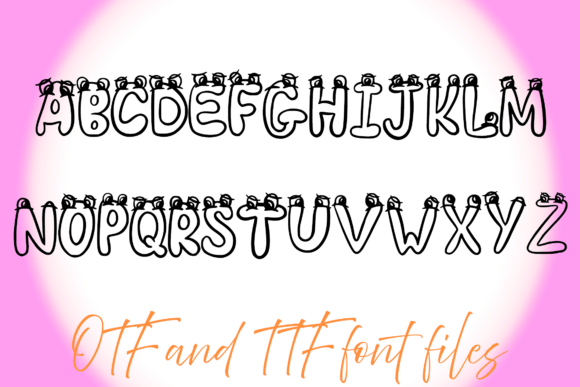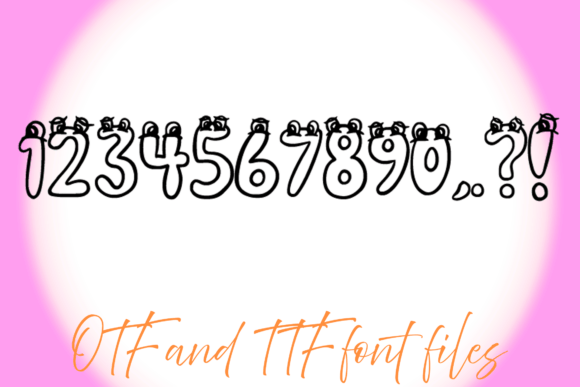
Introduction to Monster Eyes Font
Have you ever stared at a blank canvas, trying to find the perfect font to bring your creative project to life? It’s that moment of frustration, mixed with excitement, when you stumble upon a game-changing design resource. For many designers, that moment came when they discovered the Monster Eyes Font.
This incredibly unique display font has the power to elevate your designs to new heights. With its quirky, eye-catching style, Monster Eyes Font is the perfect addition to any creative project. Whether you’re working on a graphic design, a logo, or even a social media post, this font has the potential to make your design stand out from the crowd.
Key Features of Monster Eyes Font
- Unique and Creative Design: The Monster Eyes Font is designed to add a playful touch to any creative project, making it a valuable design resource.
- Perfect for Illustrations and Graphics: The Monster Eyes Font is ideal for use in illustrations, graphics, and other creative projects where a playful and eye-catching font is required.
Honest Review: Monster Eyes Font
As a designer, I’m always on the lookout for unique and eye-catching fonts to enhance my creative projects. The Monster Eyes Font caught my attention, and I decided to give it a try. Here’s my honest review.
- ✨ The font’s whimsical and playful design is perfect for projects that require a touch of fantasy and fun.
- ✨ The high-quality design ensures that the font looks great on various backgrounds, including transparent ones.
- ⚠️ The font’s character set is limited, which may not be suitable for projects that require a wide range of characters.
- ⚠️ The font may not be as versatile as some other fonts, making it less suitable for formal or professional projects.
Overall, I’m impressed with the Monster Eyes Font’s unique design and high-quality execution. While it may have its limitations, it’s an excellent resource for designers working on creative projects that require a touch of fantasy and fun. If you’re looking for a free font with a lot of character, the Monster Eyes Font is definitely worth checking out.
Use Monster Eyes Font to add a touch of creativity to your design project. You can also use it in combination with other design resources to create a unique and eye-catching design.
Monster Eyes Font is perfect for creative projects, such as graphic design, digital art, and web design. It’s also a great resource for designers who want to add a touch of whimsy and fun to their designs.